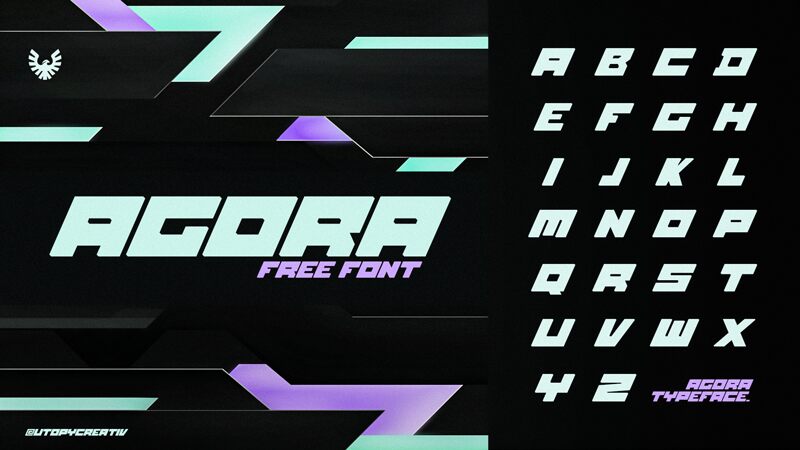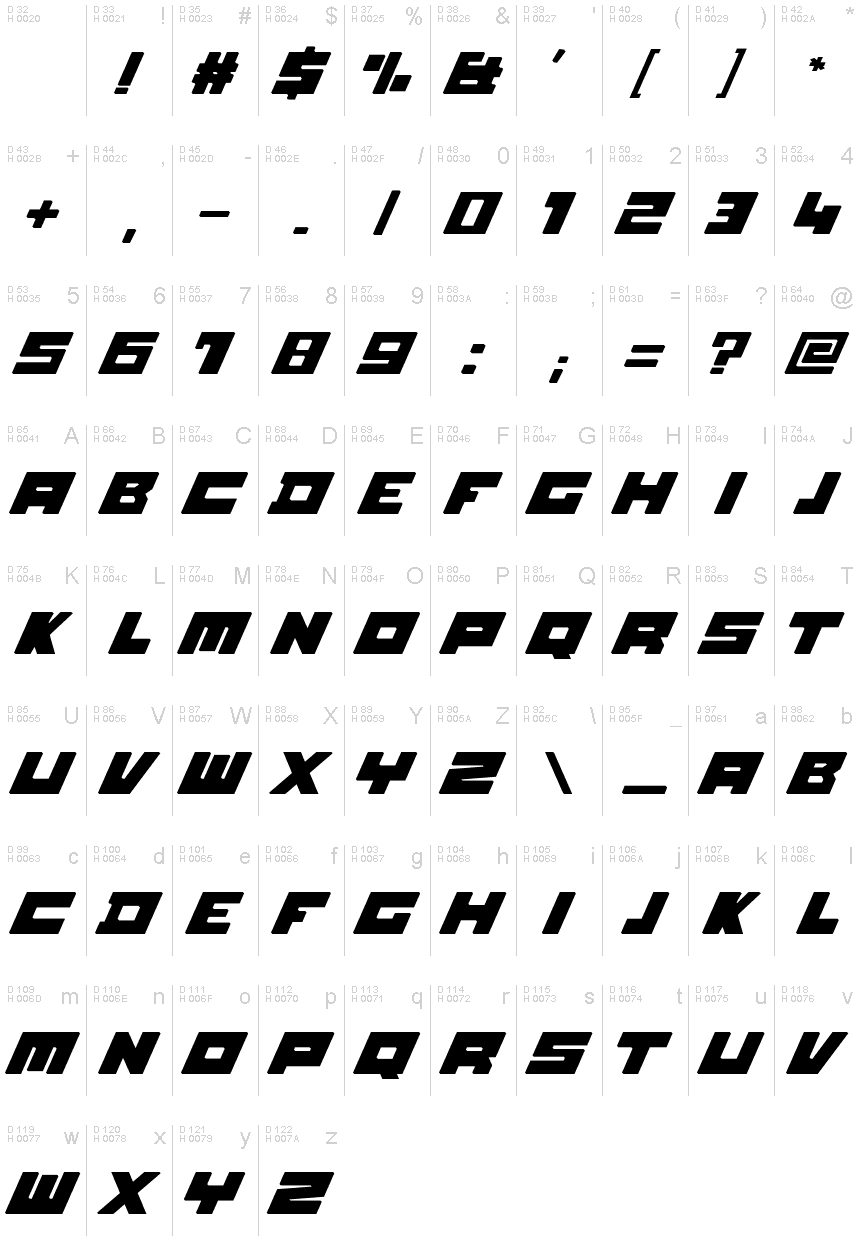
Agora Regular
Agora is a free bold and square typeface. This typeface is free for personal use but feel free to donate or contact me if you need a commercial license.
Agora is a free bold and square front (for personnal use only).